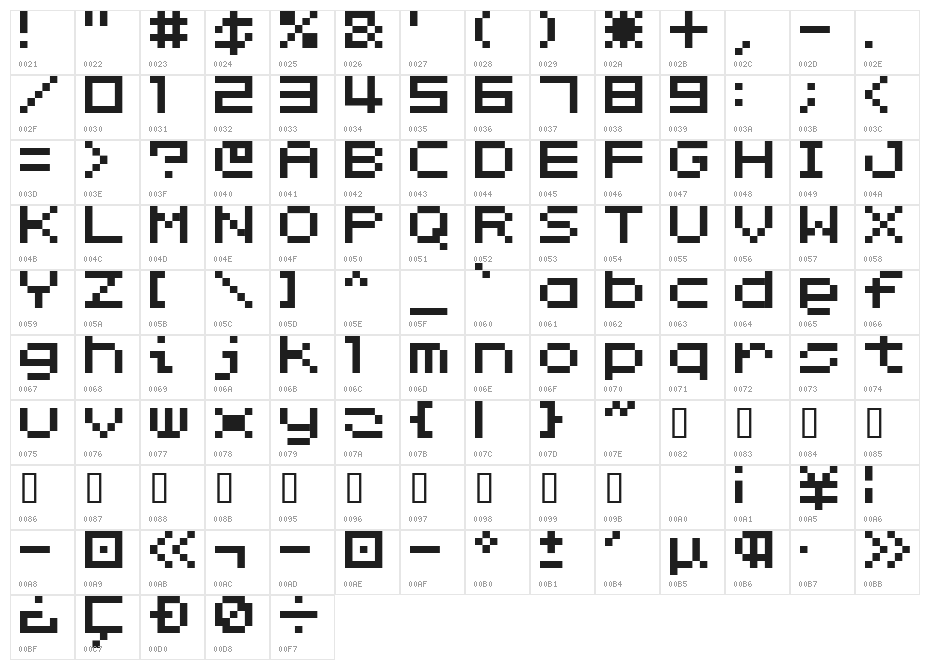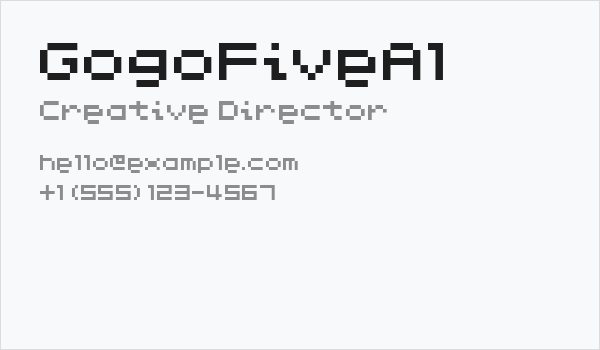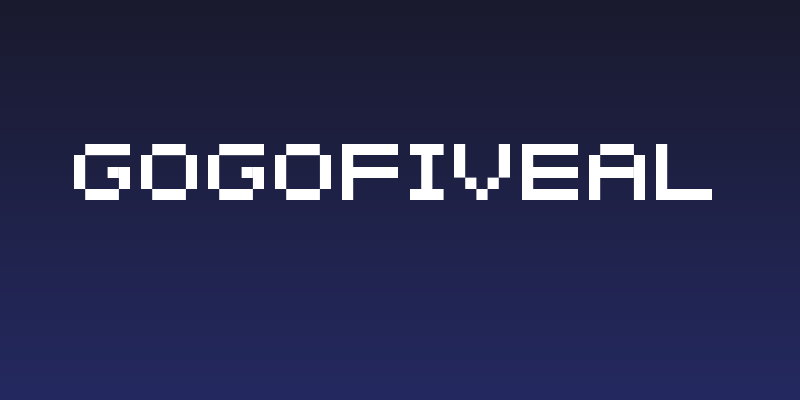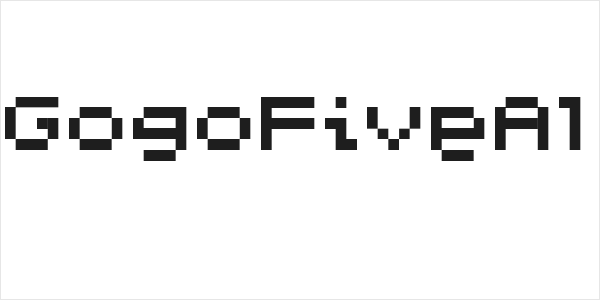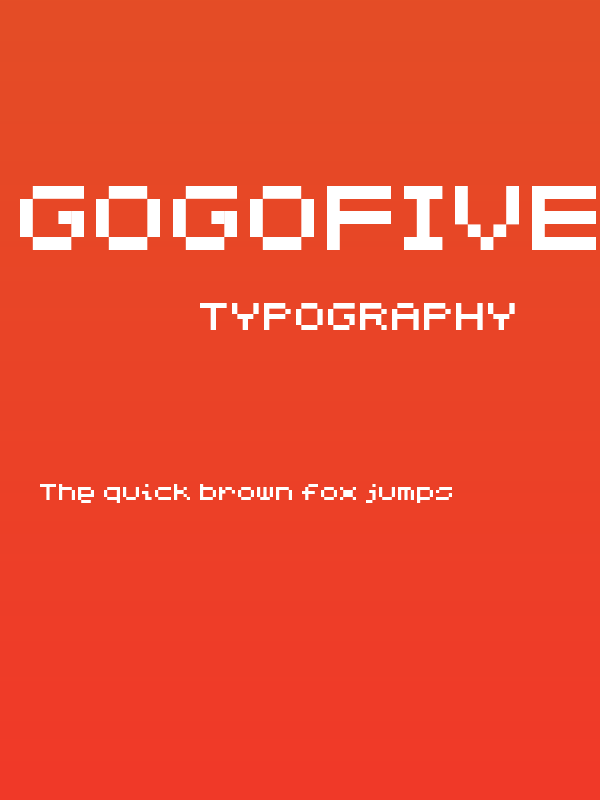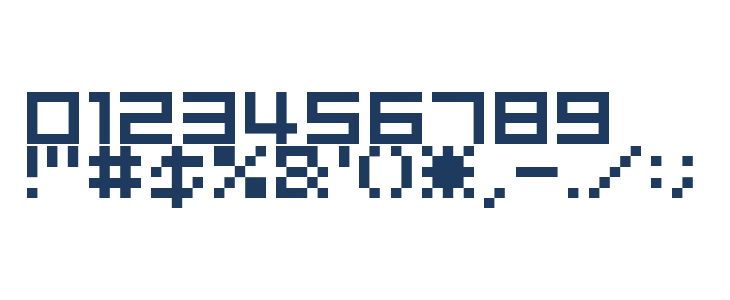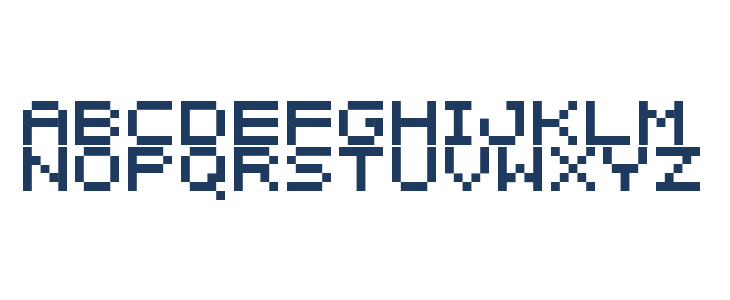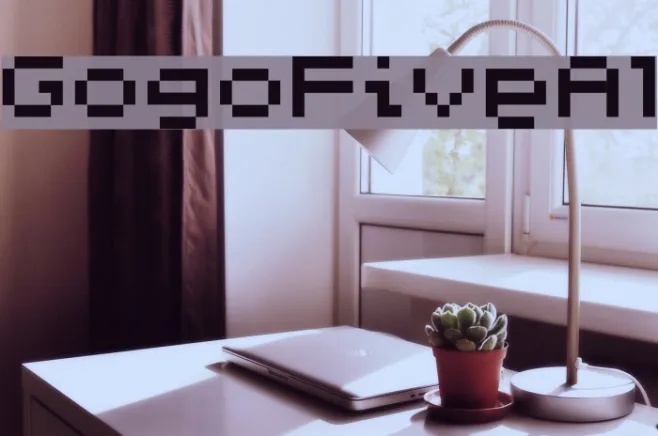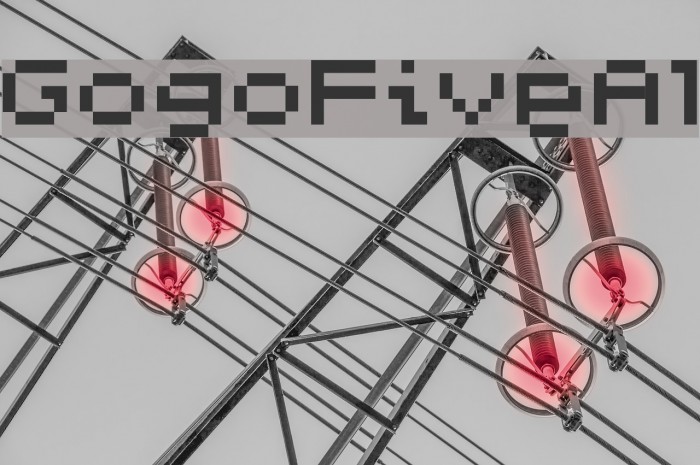
GogoFiveAl Font
GogoFiveAl Description
This font features a pixelated, blocky design reminiscent of early digital displays and retro video games. Each character is constructed with a grid-like precision, emphasizing a square, geometric form. The uppercase and lowercase letters maintain a consistent height, contributing to a uniform appearance. The numerals and special characters follow the same pixelated style, ensuring a cohesive look across all glyphs. This font's nostalgic aesthetic is ideal for projects seeking to evoke a sense of vintage digital technology or retro gaming culture.